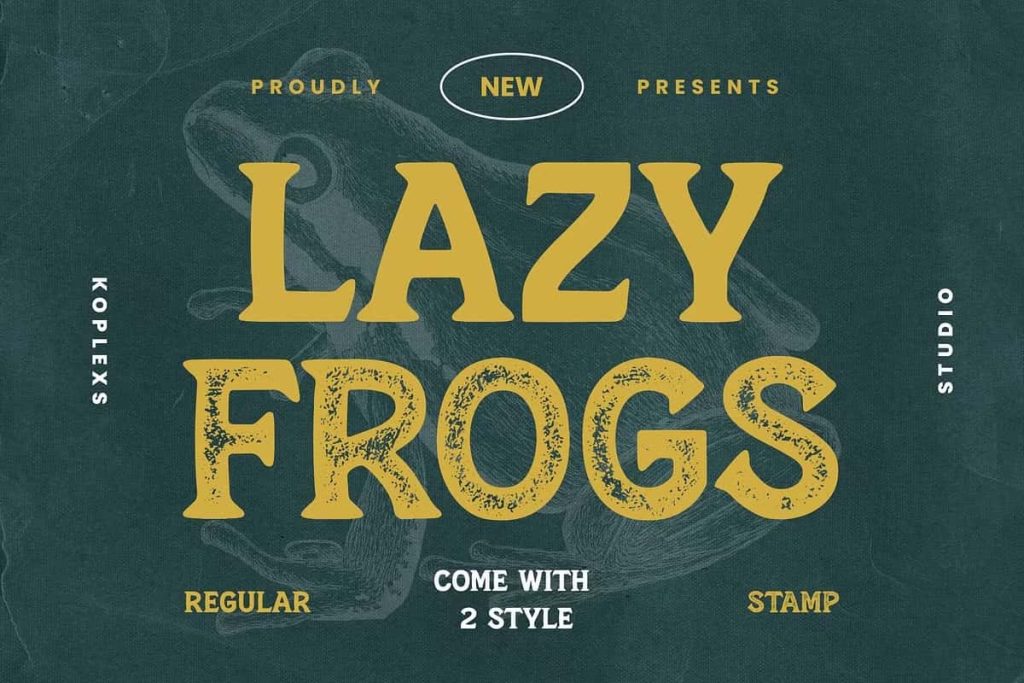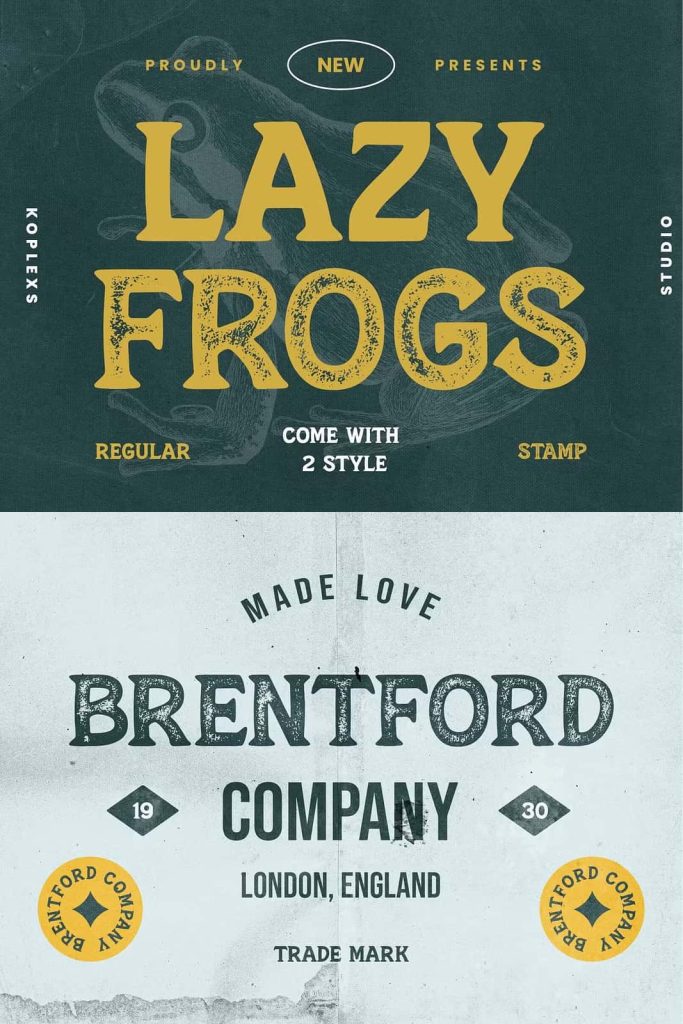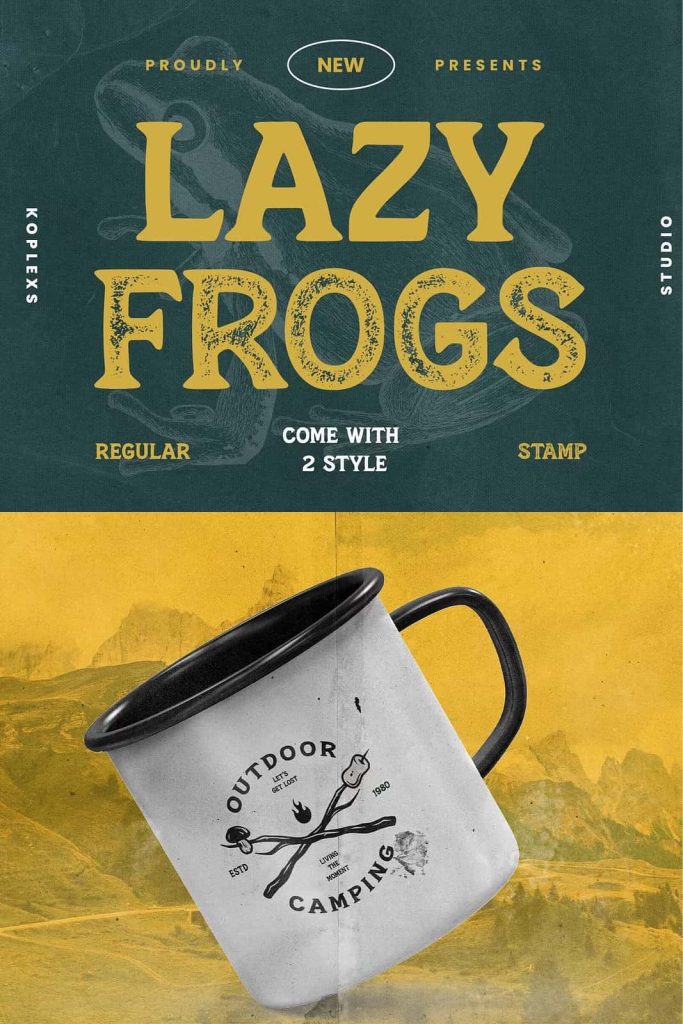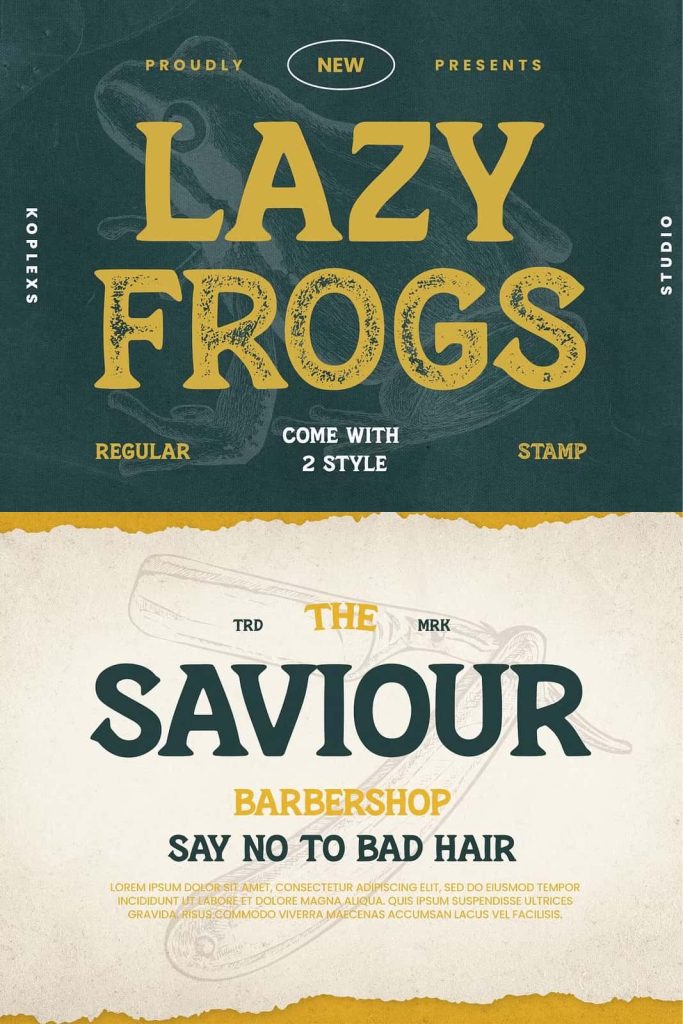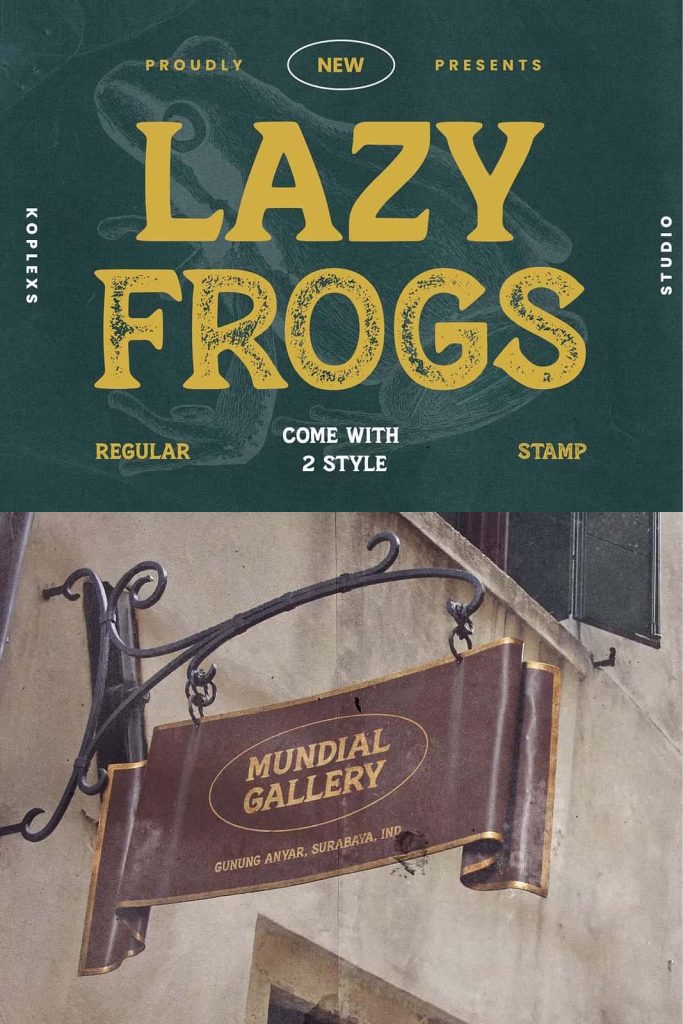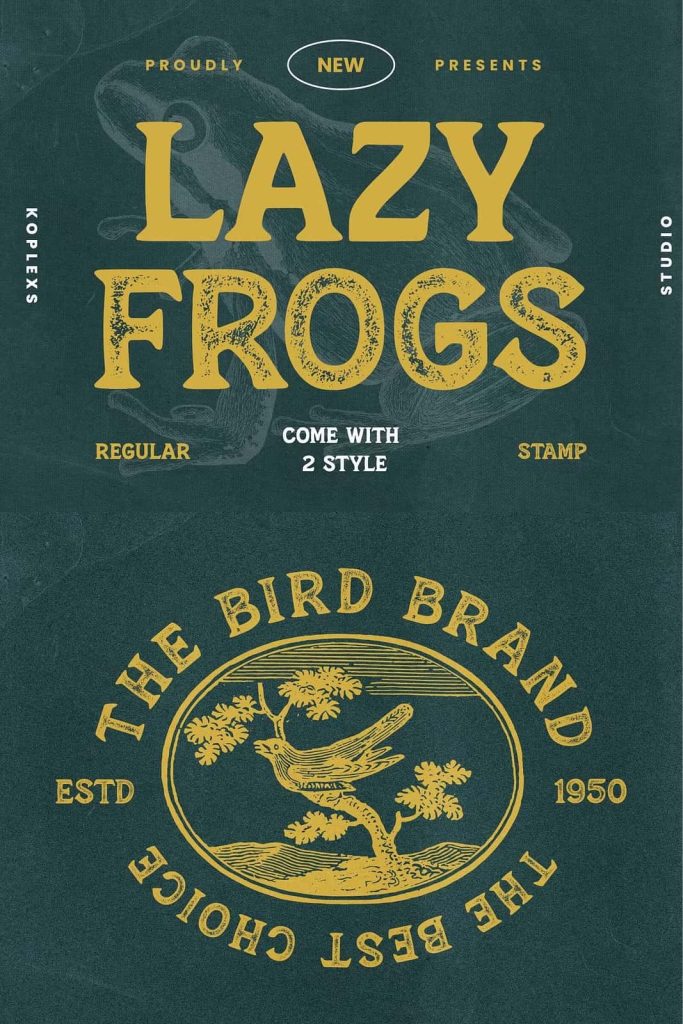
Lazy Frogs Font. the perfect choice to infuse your designs with a sense of nostalgia and uniqueness. Featuring two captivating styles, regular and stamp, this font exudes the timeless character and charm of the vintage era.
Embodying a laid-back nonchalance inspired by the word ‘Lazy’ in its name, Lazy Frogs delivers a warm and friendly retro ambiance. The regular style offers a clean and crisp look, ideal for headers, titles, and graphic designs that demand a classic allure.